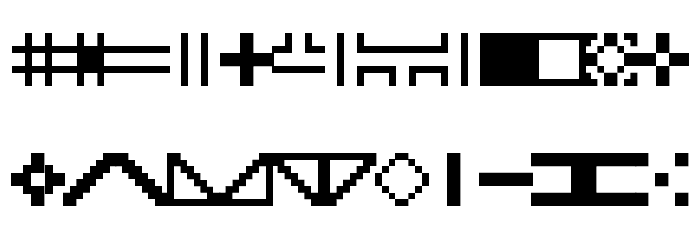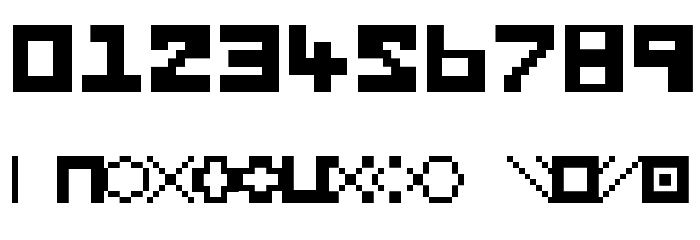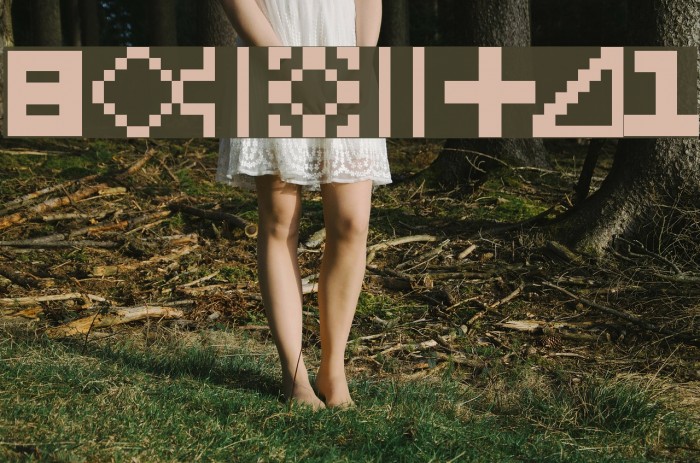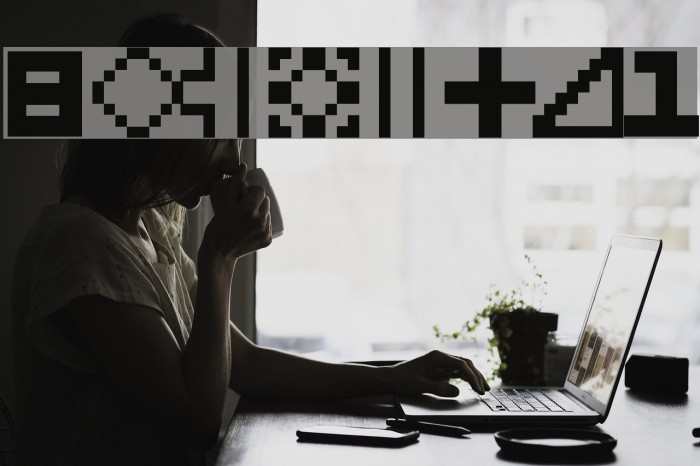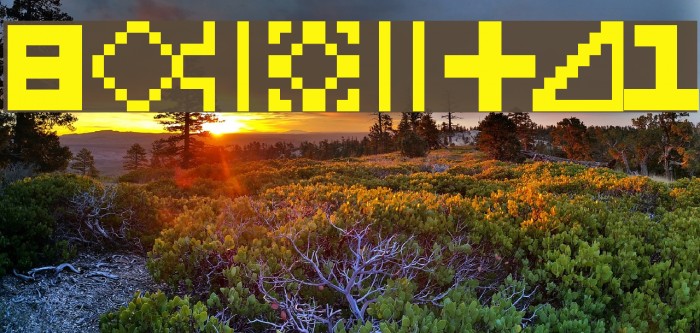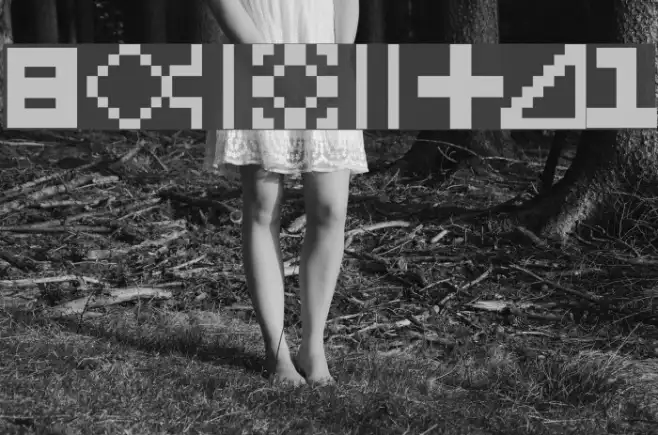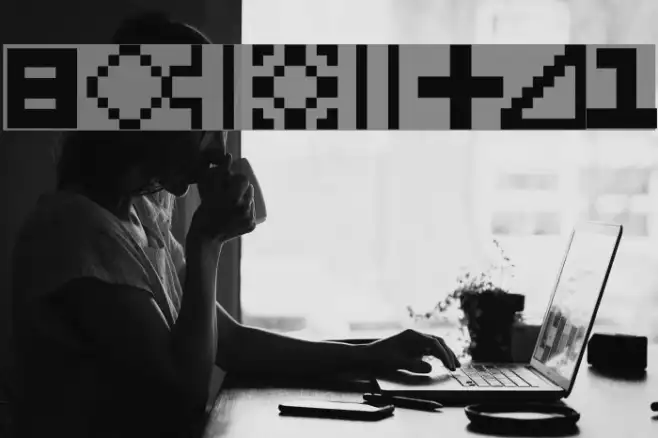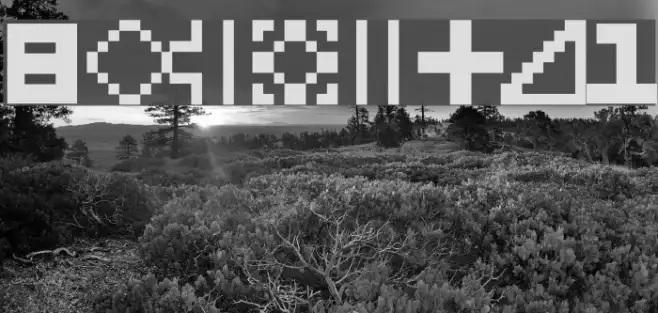
Builder1 Font
This font features a bold, pixelated design reminiscent of early digital or video game aesthetics. Each character is constructed with blocky, square shapes, giving it a distinctly retro and technological feel. The uppercase letters are uniform in height and width, creating a cohesive and structured appearance. The numbers follow a similar design, maintaining consistency across the set. Special characters are stylized with unique geometric patterns, adding a decorative element to the font. The overall style is playful yet functional, suitable for projects that aim to evoke nostalgia or a digital theme.
- Proposed Projects: Ideal for video game design, retro-themed posters, digital art, and tech-related branding.
- Overall Style: Retro, Digital